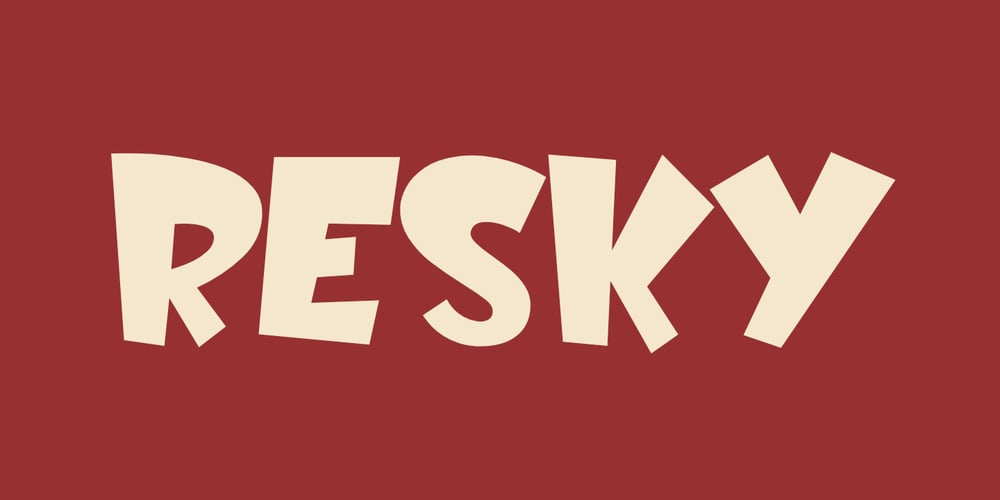
Resky Font Family was designed by Saiful Anwar and published by Sealoung. Resky contains 1 styles and family package options. Resky Unique Display Font is a captivating and versatile typeface designed to elevate your text with a modern and distinctive flair. Ideal for logos, headlines, posters, and web design, this font merges contemporary style with unique character, ensuring your text stands out.Resky Unique Display Font features bold, dynamic letterforms with sharp angles and smooth curves, offering excellent readability and a striking visual appeal. The meticulous design ensures that each character contributes to a cohesive and eye-catching overall look.Whether you’re creating a memorable logo, an attention-grabbing advertisement, or a sleek and stylish website, Resky Unique Display Font is the perfect choice to infuse your project with a modern and unique edge.